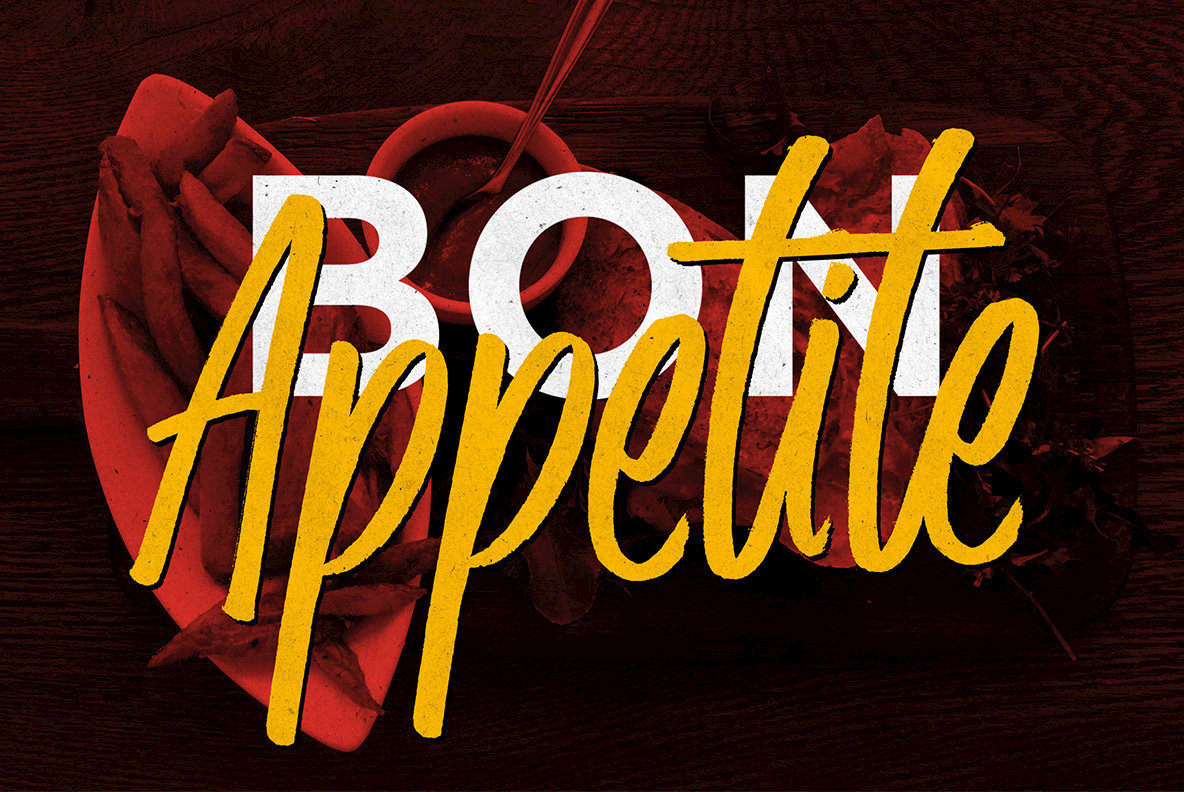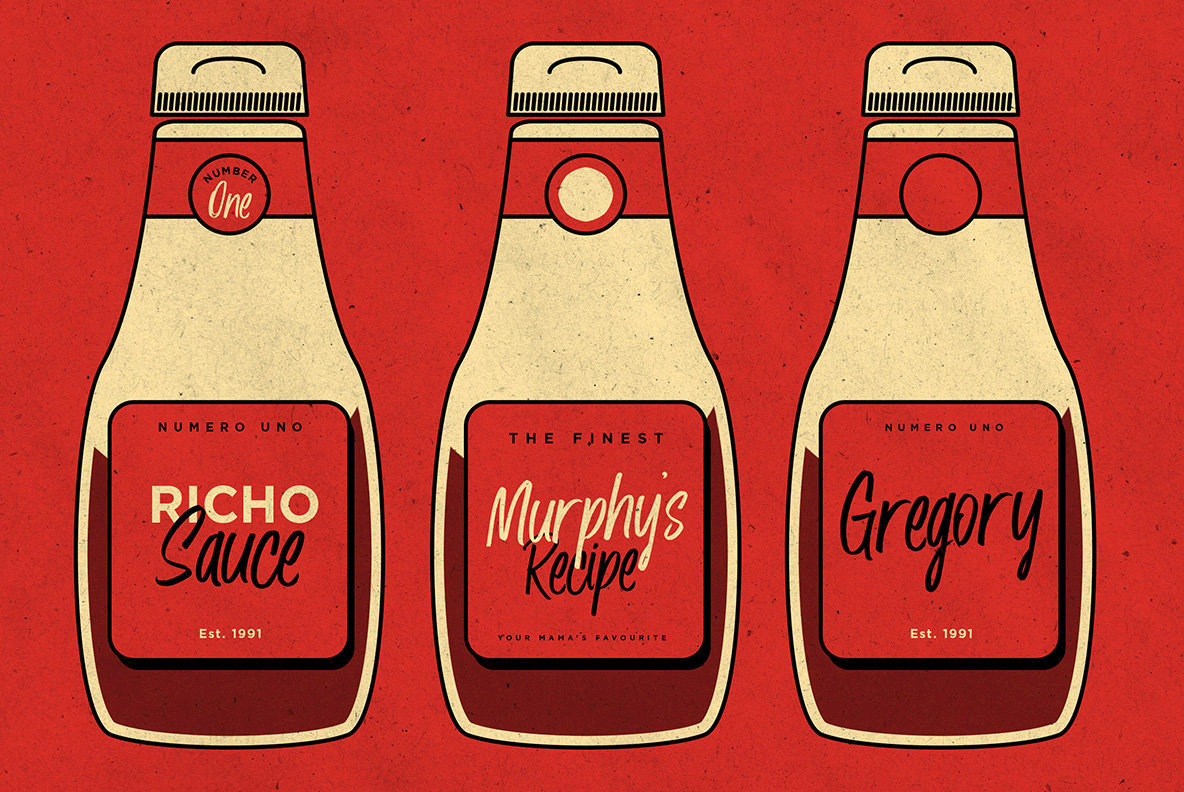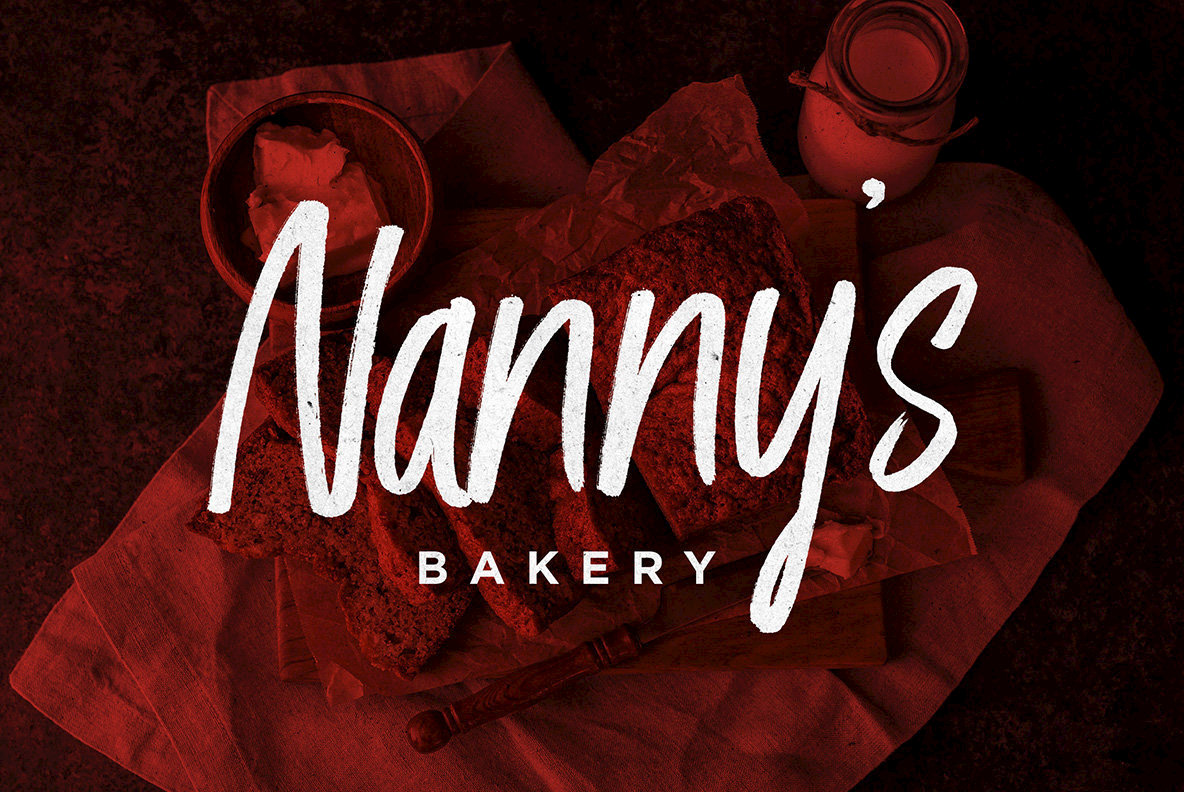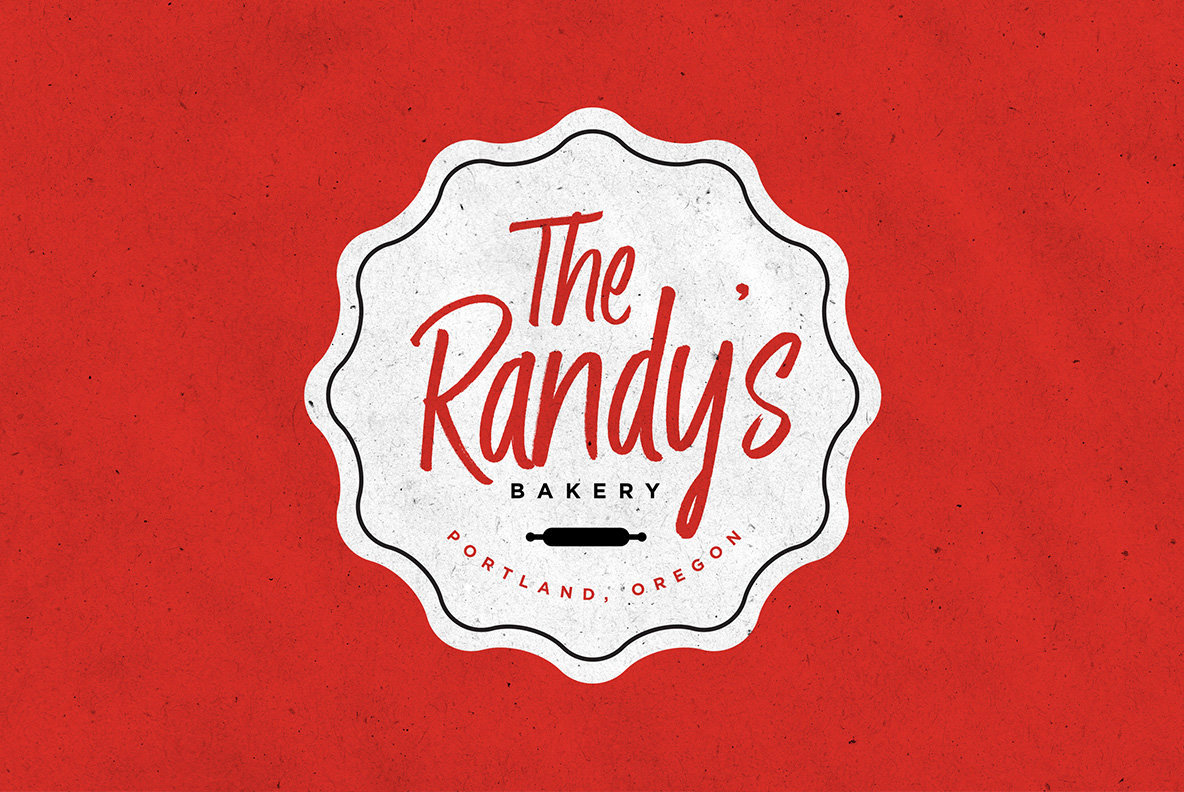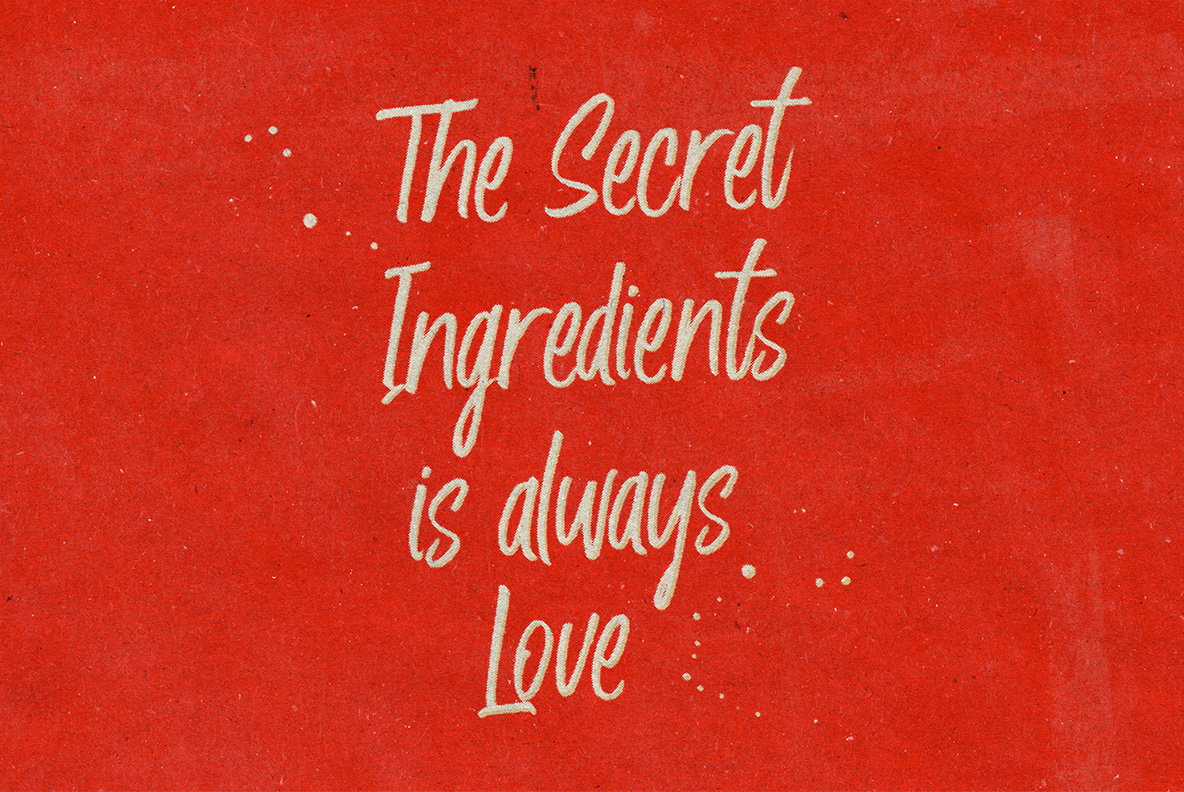
Husky Giggle Font
Embrace the retro aesthetic with Husky Giggle, a duo of fonts that captures the essence of vintage casual flair. Born from the tactile strokes of a brush pen and ink, Husky Giggle is designed for those seeking to infuse their branding with a personal and informal touch. Ideal for logos, food, and beverage projects, this font delivers a bold handwritten feel that exudes authenticity and charm. Create a distinctive identity with Husky Giggle's charming design. Its versatility and warmth promise to bring a smile to any project.Husky Giggle: The Handcrafted Duo for Vintage Appeal